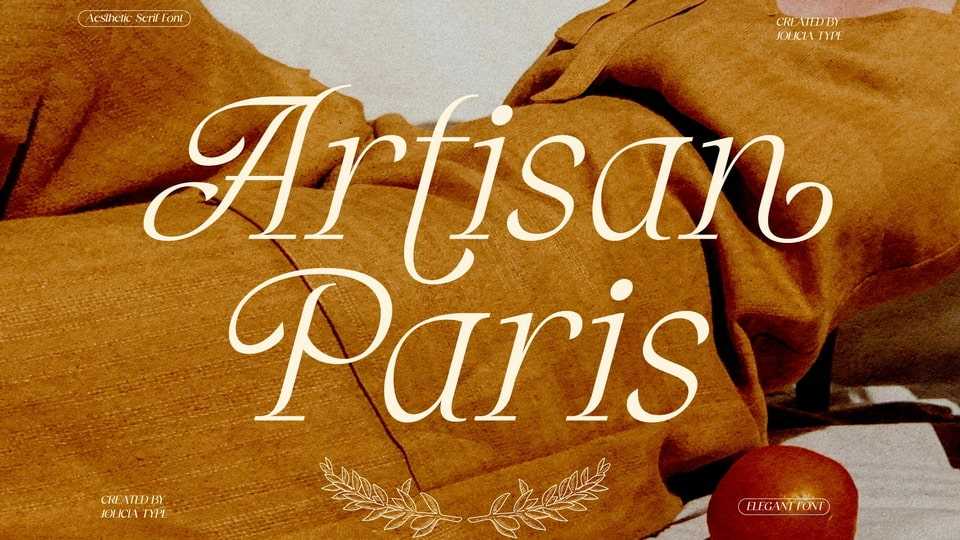
Download Artisan Paris font,, a true embodiment of Parisian finesse and grace, a mesmerizing display typeface crafted with a delicate and aesthetic feminine style.